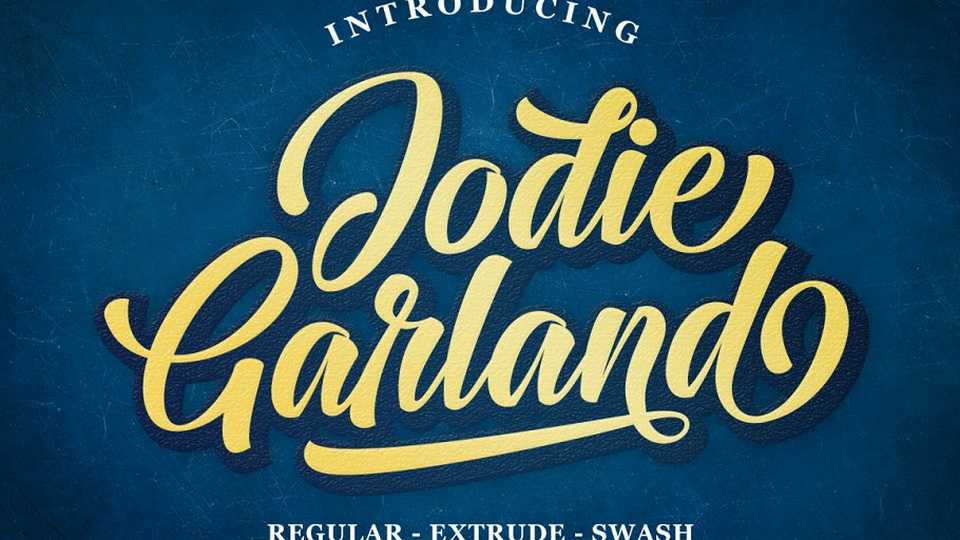
Download Jodie Garland font, a stunning hand lettered script, inspired by retro style. Jodie Garland font is great features for logos, posters, badges, book covers, t-shirt designs, product packaging, headers, posters, merchandise, social media and more.
Designer: Lettersams